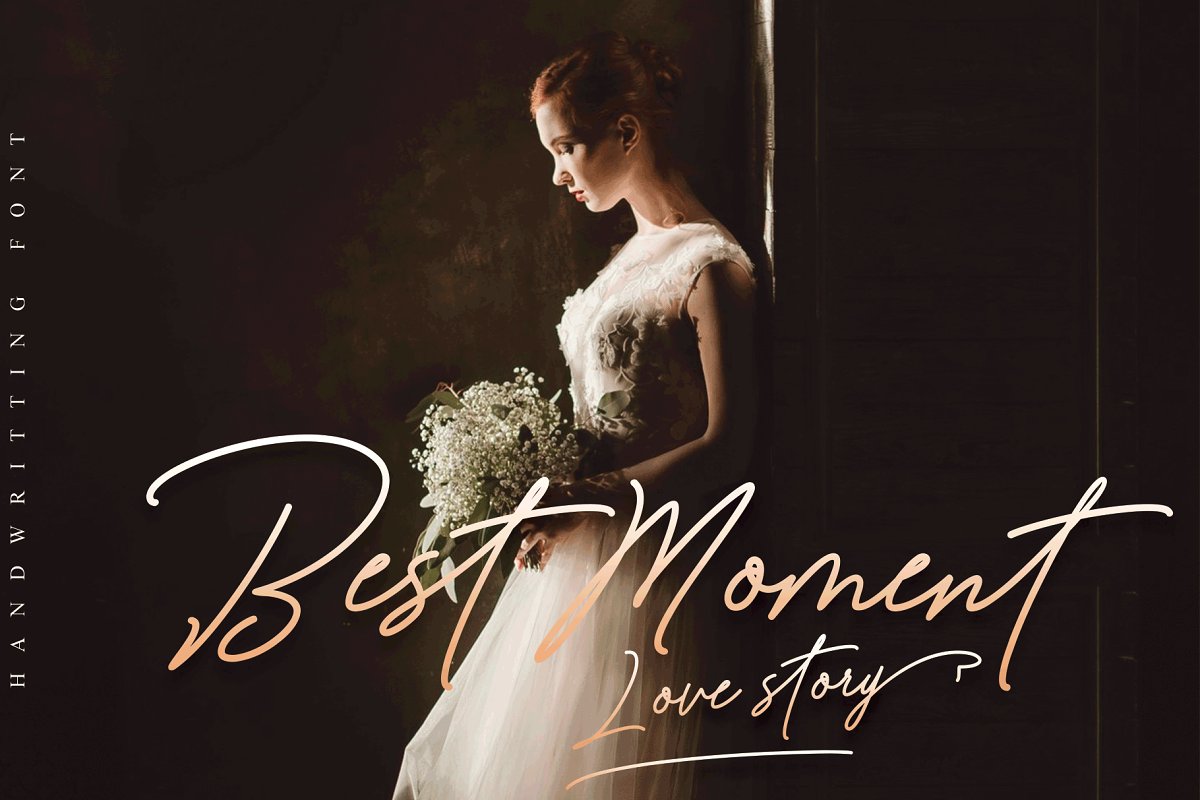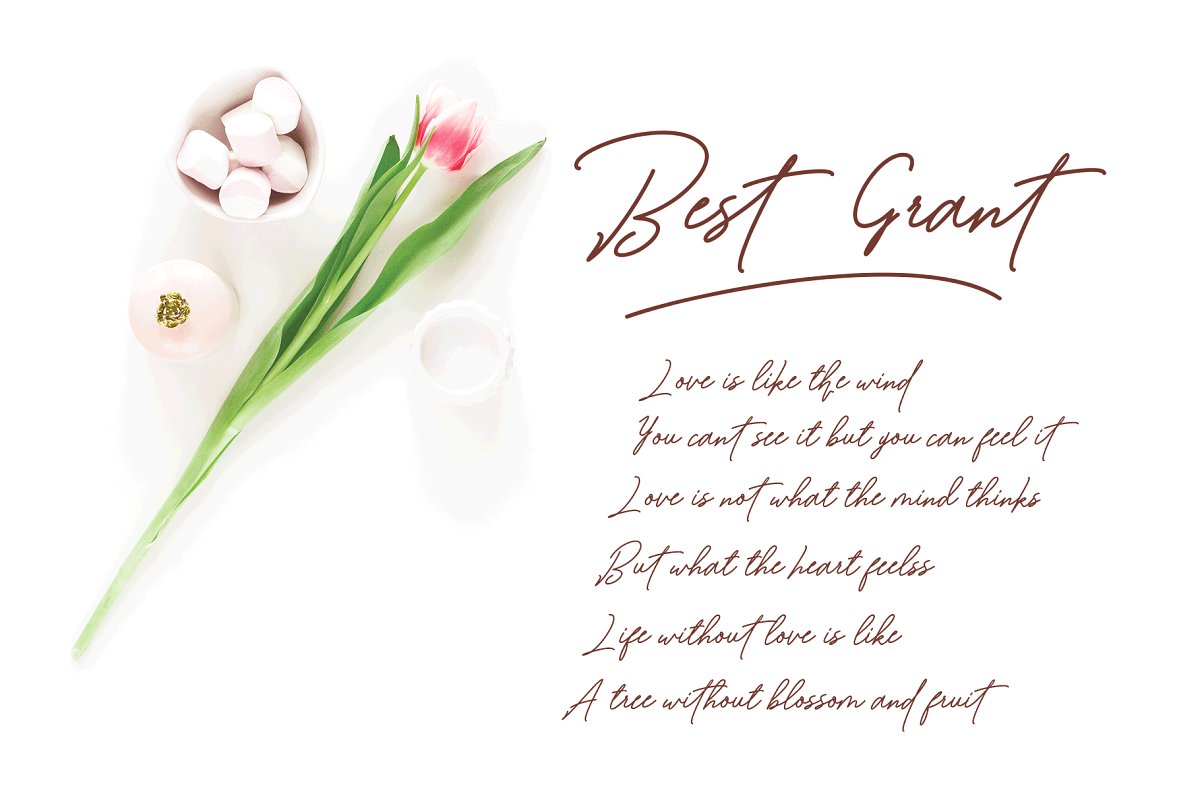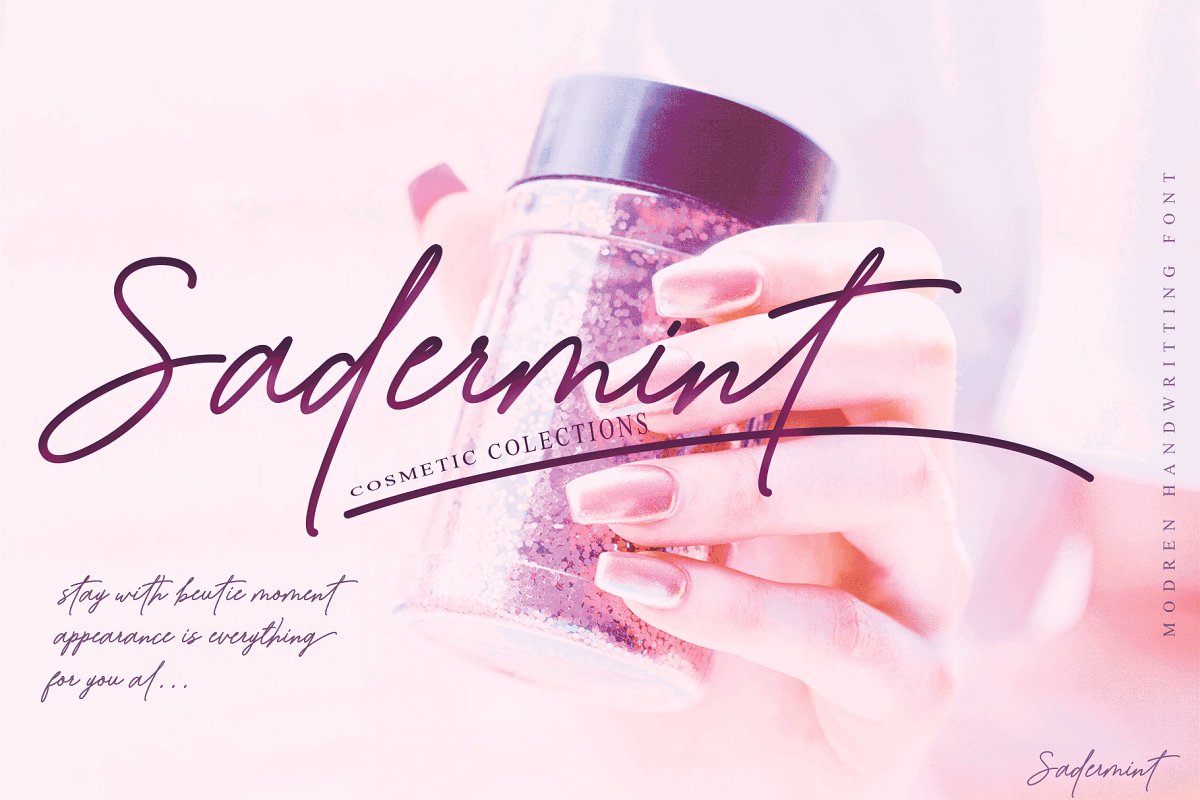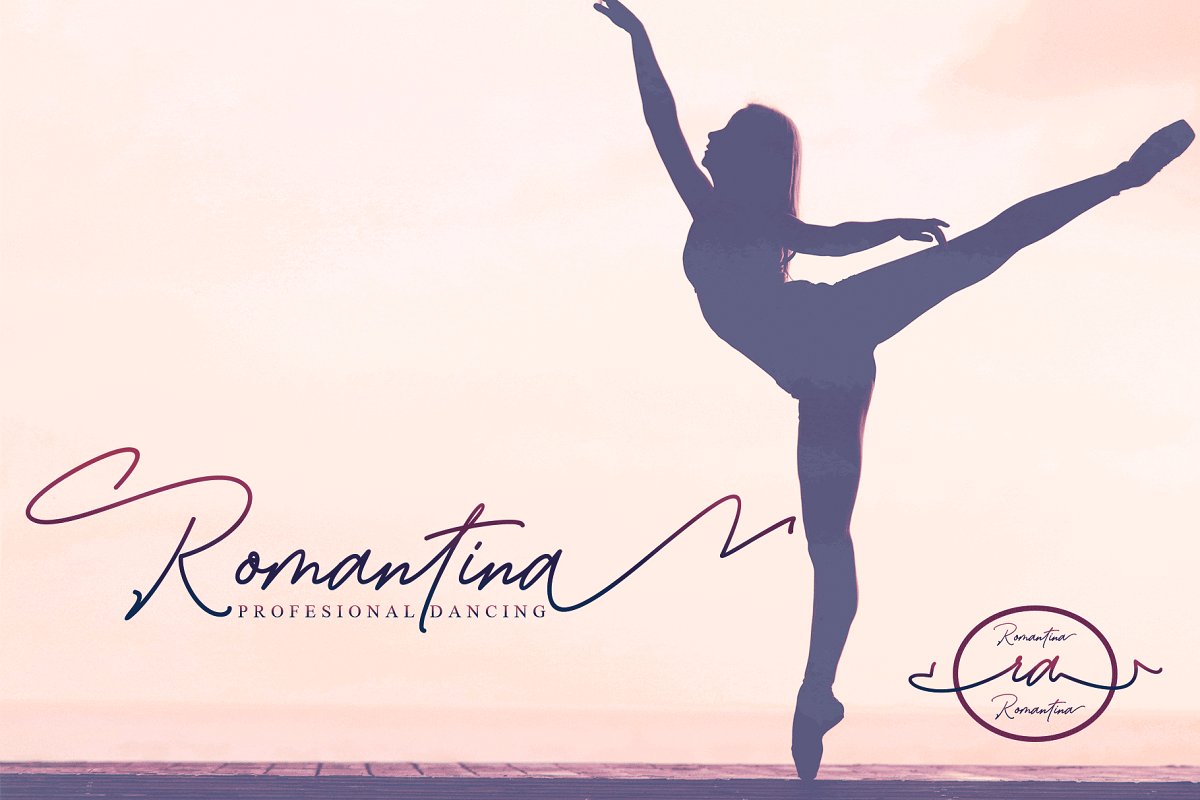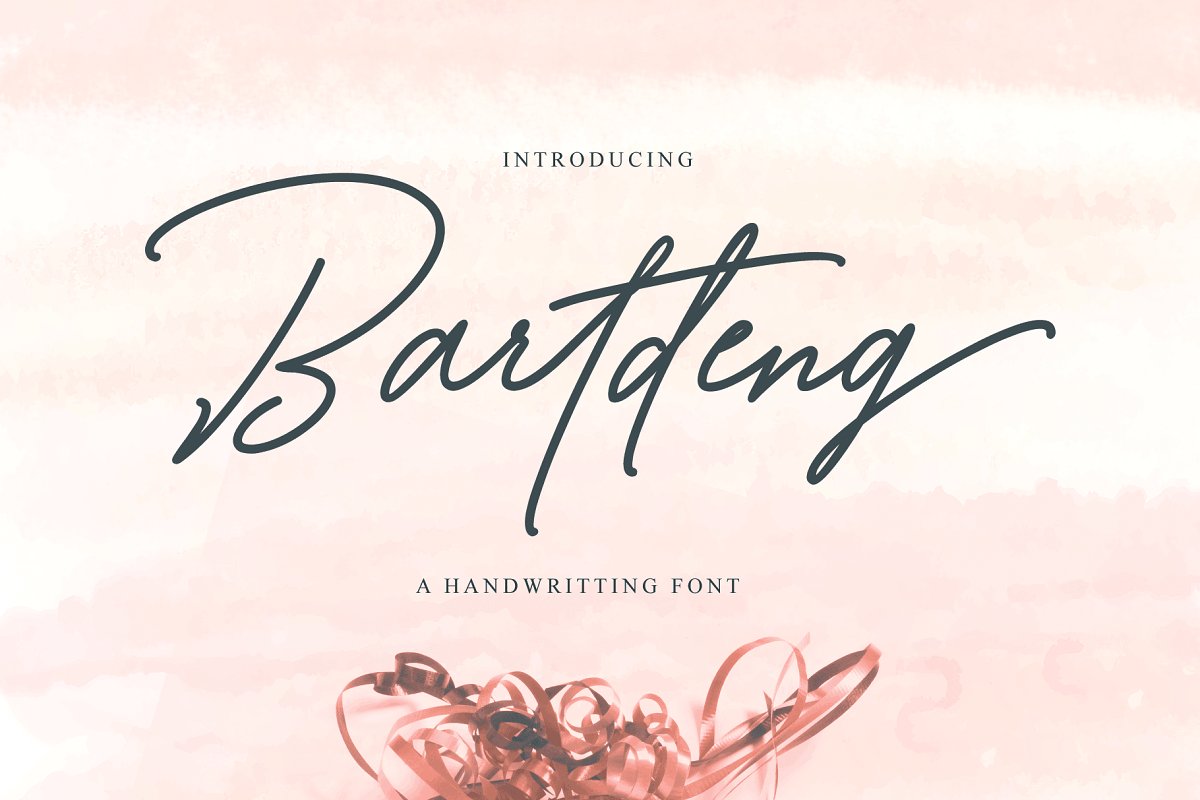
Bartdeng Handwritten Font
A modern typeface based on hand lettering, it looks beautiful. The natural hand writing script is suitable for you who needs a typeface to make your text stand out. Introducing Bartdeng Font! Bartdeng is a luxsury Handwritten Font with a new stylish, a perfection style of the letters you want to use, modern handwriting with many alternatives. Now this is an opentype! It’s smart and in line with your wishes! You are welcome to use it, suitable for various purposes: logo, signatures, corporate symbol, wedding invitation, title, creative, t-shirt, business card, letterhead, nameplate, headings, label, poster, news, badge, letterhead, cutting, hot stamping, quotation, etc.